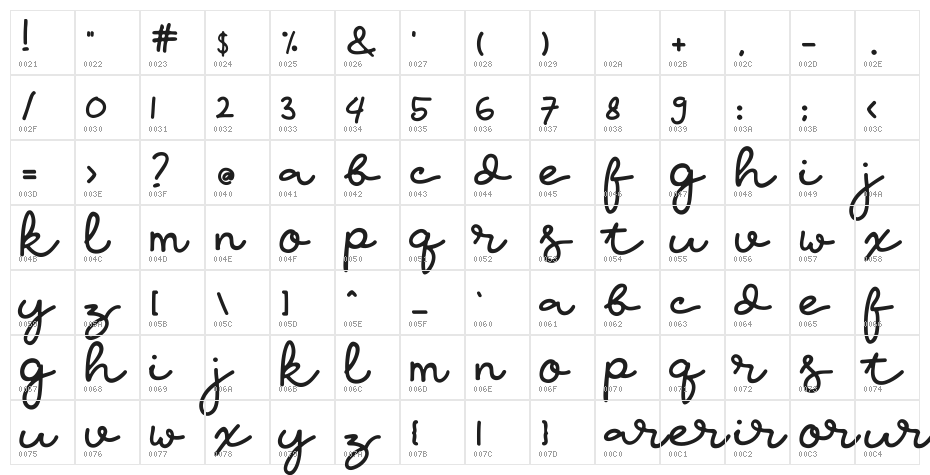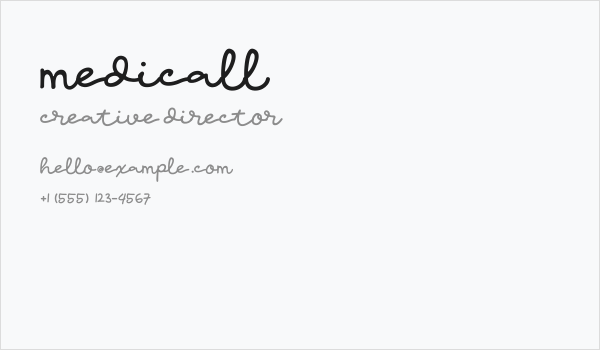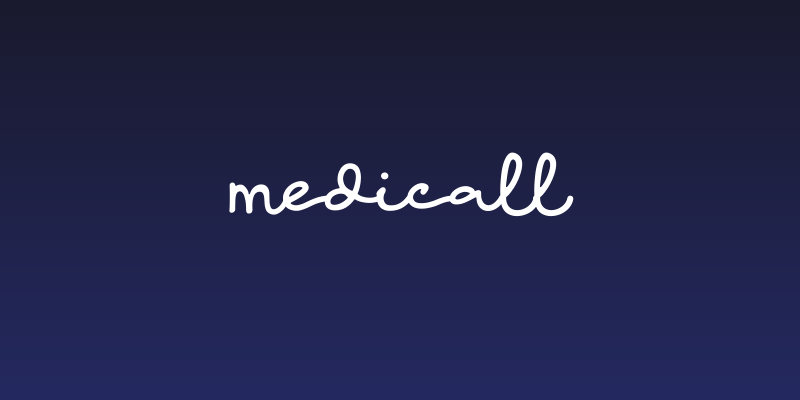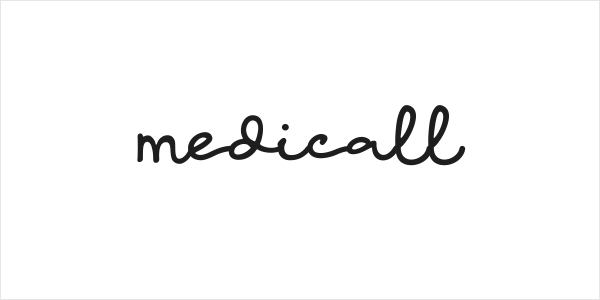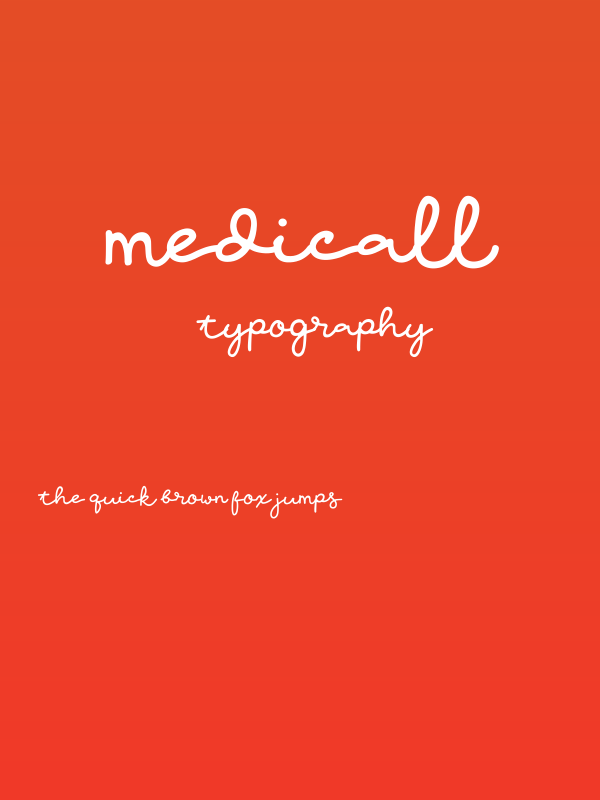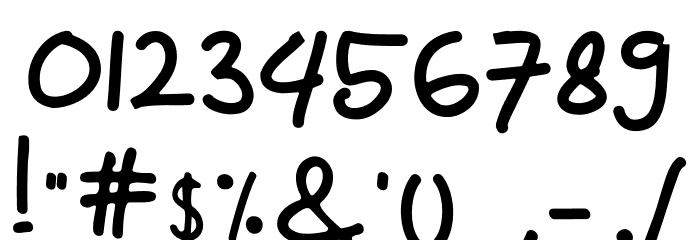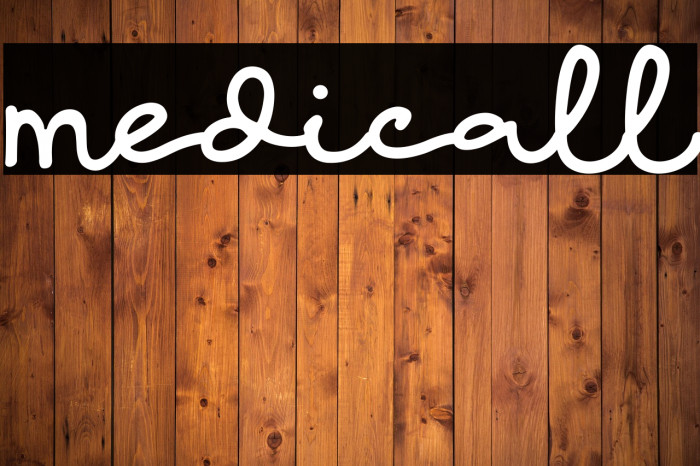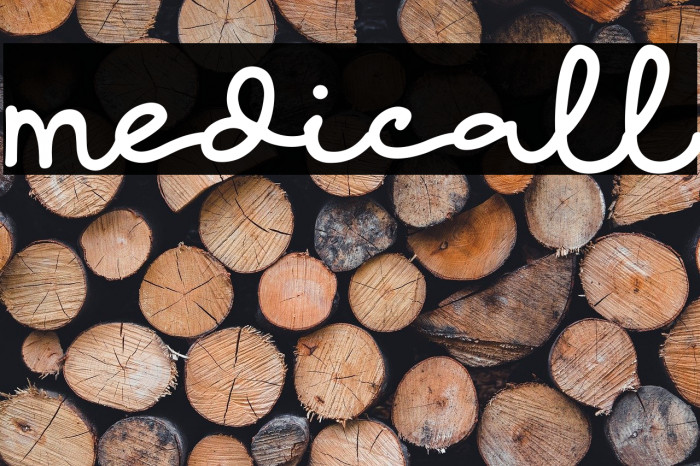
medicall Font
medicall Description
This font features a playful and casual handwritten style, characterized by smooth, flowing curves and a consistent stroke width. The letters are connected, giving it a cursive appearance, yet it maintains legibility with clear distinctions between each character. The numbers and special characters complement the alphabet with a similar style, ensuring a cohesive look. The overall design exudes a friendly and approachable vibe, making it suitable for informal and creative applications.
| Proposed Projects | Ideal for greeting cards, invitations, personal branding, and creative projects that require a friendly, informal touch. |